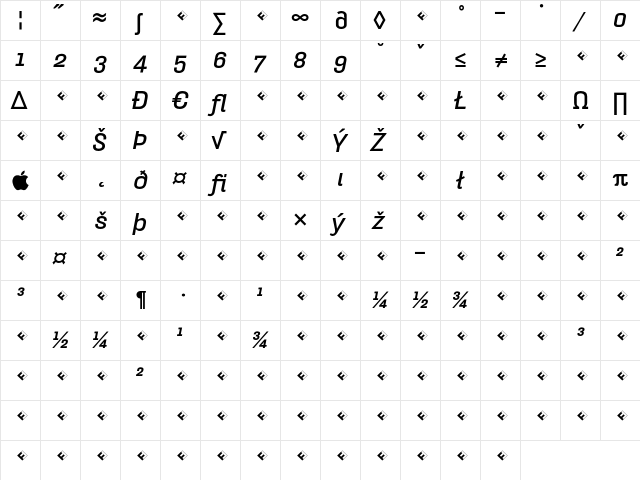
HydraText-BoldItalicExpert Regular Font Preview
HydraText-BoldItalicExpert Regular
Design Context for HydraText-BoldItalicExpert Typeface
HydraText-BoldItalicExpert is a composed and adaptable typeface that performs quietly and consistently across a wide range of design contexts. The slanted form adds forward momentum and visual energy. The heavy weight commands attention and anchors typographic hierarchies.
Pro Tip: Use HydraText-BoldItalicExpert for emphasis, pull quotes, and subheadings where its slanted energy can add rhythm to the layout.